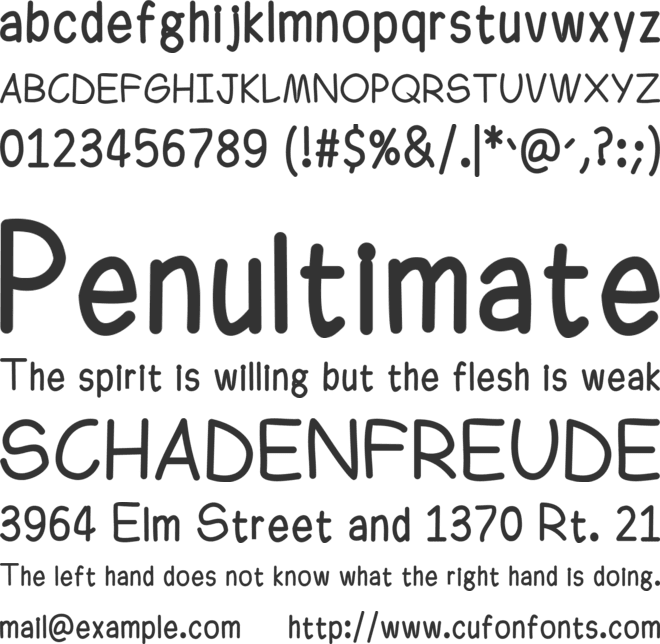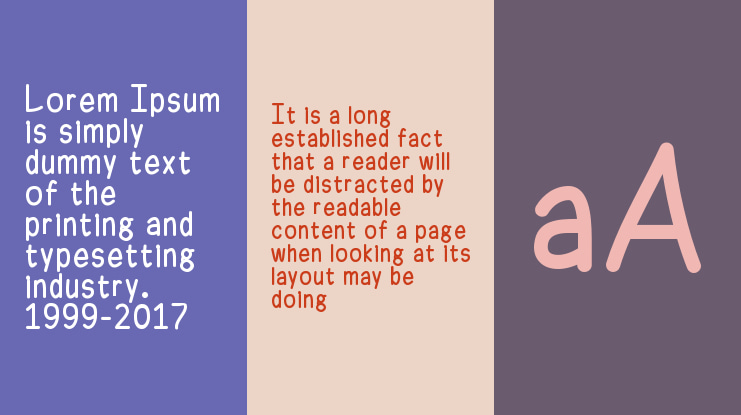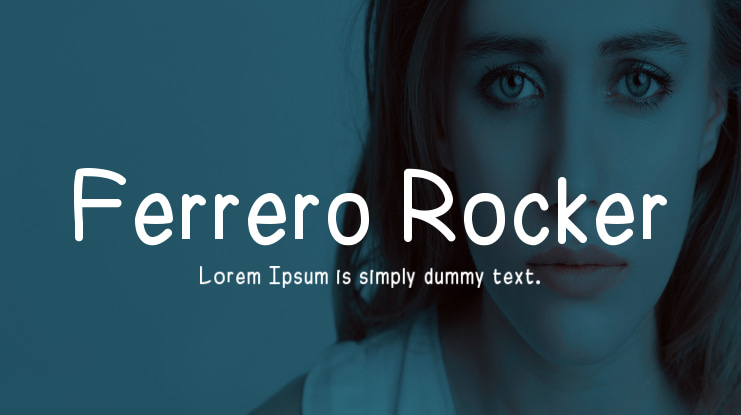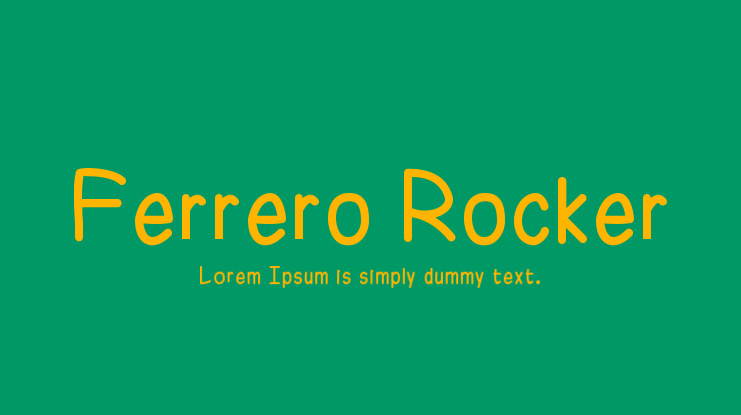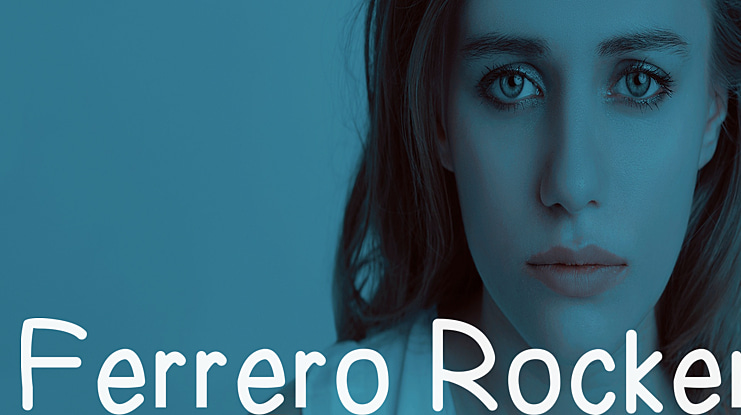
Ferrero Rocker Font
Introducing my new sans-serif font Ferrero Rocher.
Ferrero Rocher is an all typeface perfect for any fun quirky design work!
Ferrero Rocher comes with Uppercase, Lowercase and Standard Punctuation. You will also get regular, italic, bold and bold italic.
The typeface is versatile and can be successfully used in Magazines, Posters, Branding, Websites, T-Shirt designs, phone cases, greeting cards, invitations, mugs and so much more! Get creative!